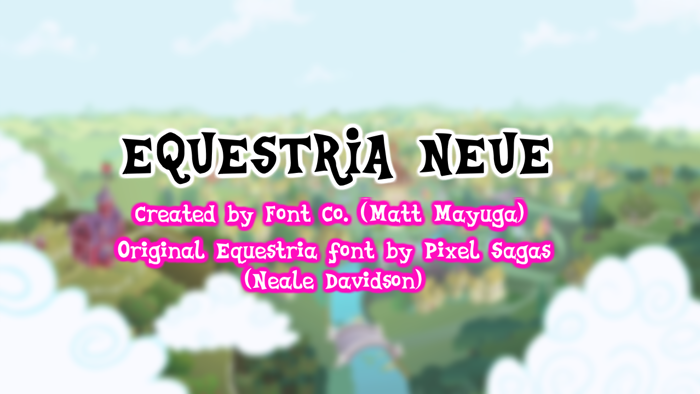
Equestria Neue Font
Original Equestria font by Pixel Sagas (Neale Davidson). Equestria Neue created by Matt Mayuga
Equestria is the most popular My Little Pony font created by Neale Davidson. Equestria Neue aspires to be the better version of Neale Davidson's Equestria font. It's perfect as a font for some My Little Pony stuff, for making MLP logos, and more. Includes full alphabet (both upper-case and lower-case), more extended characters and punctuation, and Euro. New symbols are also added in this font.